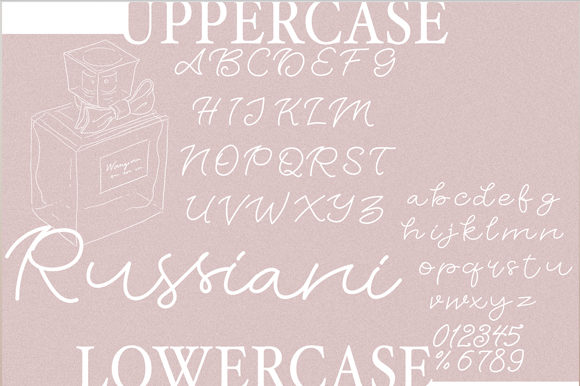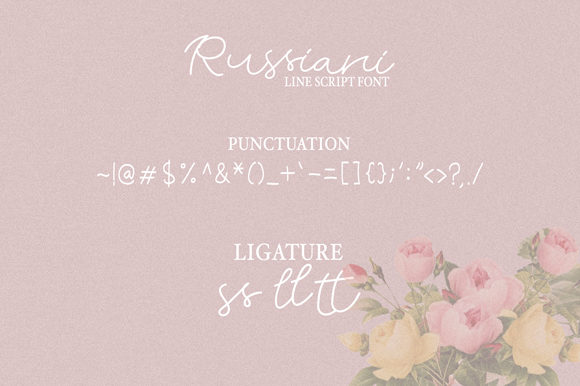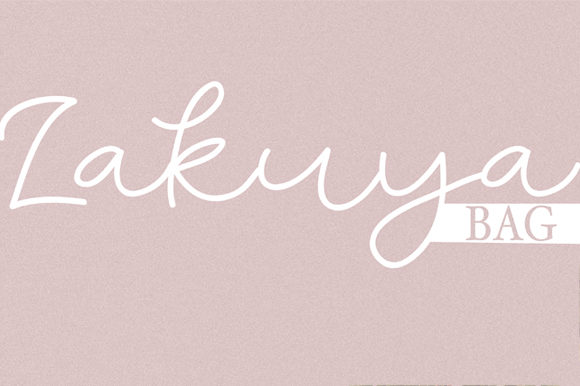
Introduction to Russiani Font
The Russiani is a strong, yet elegant handwritten typeface.
πŸ‘€ Author bestee fakin houwer
It’s the perfect companion to create strong and wild feelings for your creative projects Just play with the uppercase and lowercase letters to make the perfect words.
Why Choose Russiani Font?
Russiani Font offers exceptional quality and versatility, making it a valuable addition to your design toolkit. Whether you’re creating for personal projects or commercial use, Russiani Font delivers professional results.